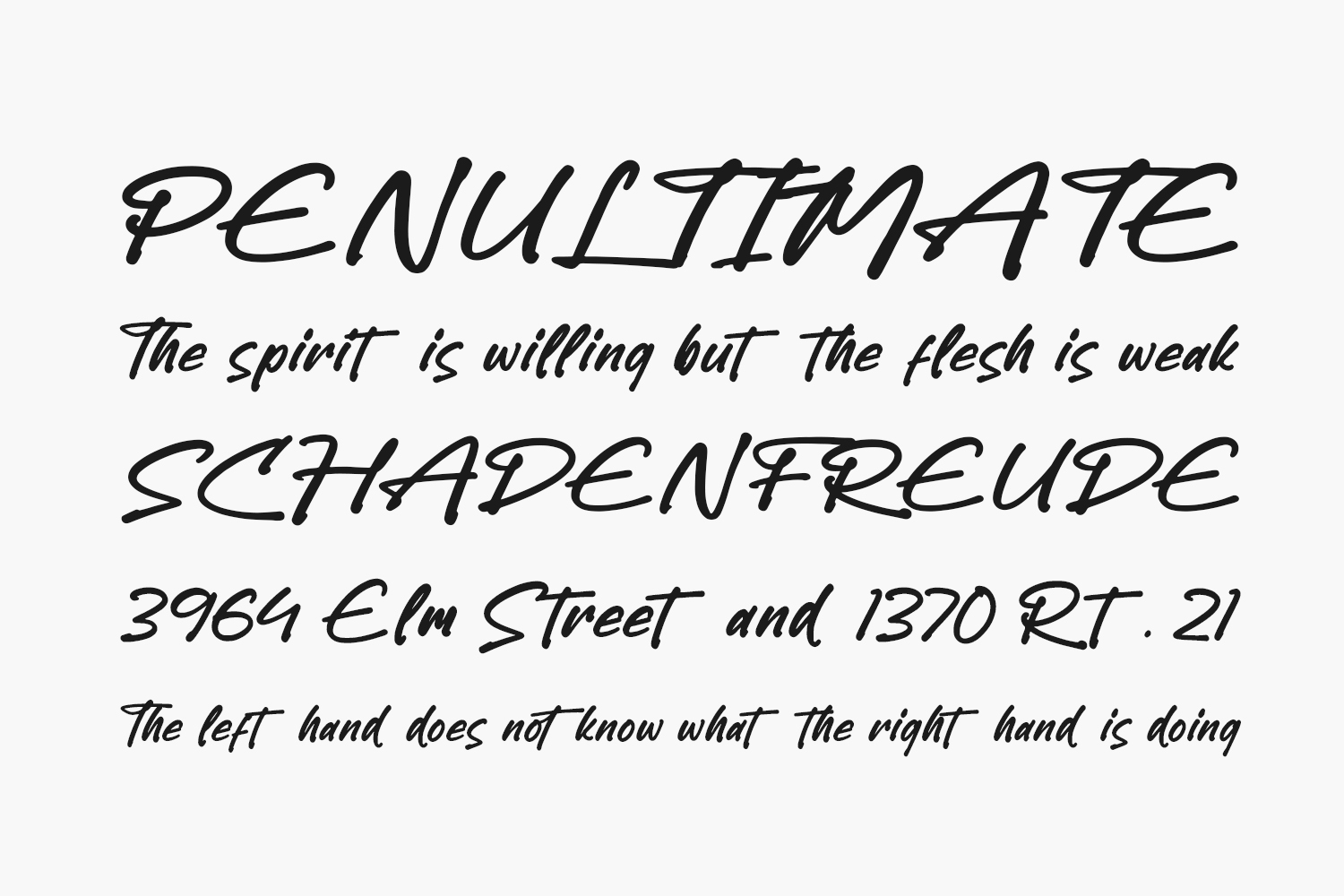
Gastony Signature Free Font is an exquisite script font, meticulously designed with intricate details. Regardless of your project’s subject matter, this font is a valuable addition to your collection, with the potential to elevate any creative endeavor. Gastony Signature Free Font is free for personal use only. Please purchase the full version for commercial use.
Designed by Letterena Studios